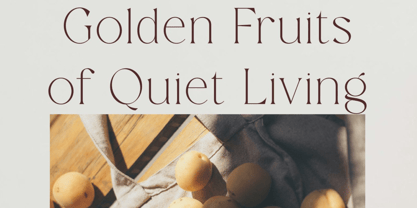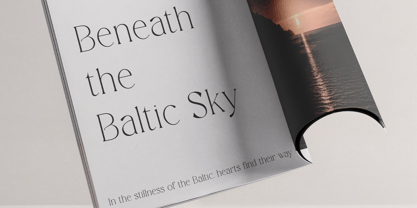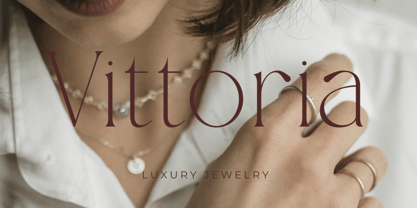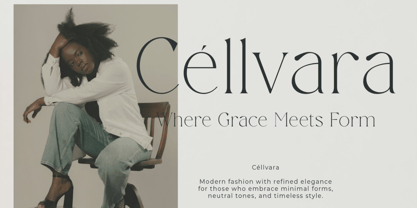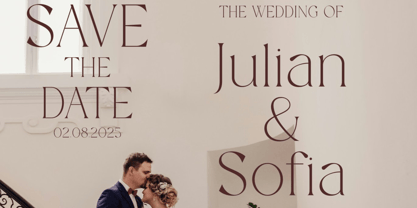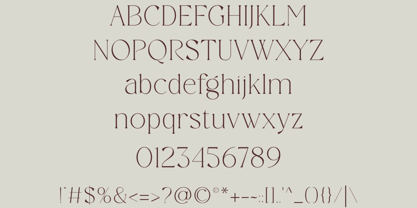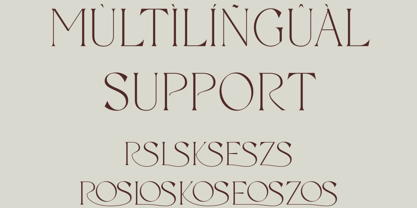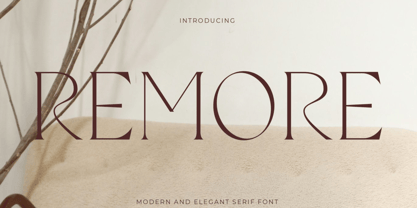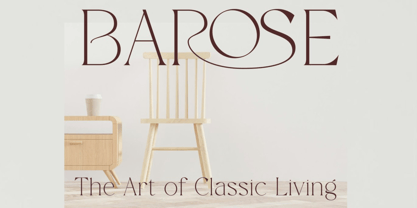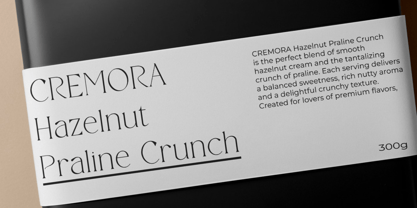
Rusore
Rusore is a refined serif typeface that blends modern sophistication with timeless elegance. Featuring luxurious curves, stylish alternates, and a minimalist aesthetic, Rusore is the perfect font for branding projects that need a touch of class and individuality.
Designed to bring a clean and contemporary feel, Rusore works beautifully across a variety of platforms—from luxury logos and wedding invitations to magazine layouts, web headers, and social media graphics.
Its unique uppercase characters and tasteful ligatures make Rusore a stand-out choice for those seeking customization and refined detail in their designs.
✿ Key Features:
• Elegant Serif Style: Modern and minimalist with luxury appeal.
• Uppercase & Lowercase Letters: Customizable capital forms for distinctive typography.
• Stylish Ligatures & Alternates: Create a tailored, handcrafted look in your design.
• Multilingual Support: Accented characters included for global accessibility.
• Full Character Set: Includes numerals and standard punctuation.
✿ Perfect For:
• Luxury Logos & Brand Identities
• Wedding Invitations & Event Stationery
• Business Cards & Greeting Cards
• Fashion Magazines & Editorial Headlines
• Modern Websites & Hero Text
• Social Media Graphics & Quote Posts
Make your typography shine with Rusore—a versatile and elegant serif font that adapts beautifully to any creative project.